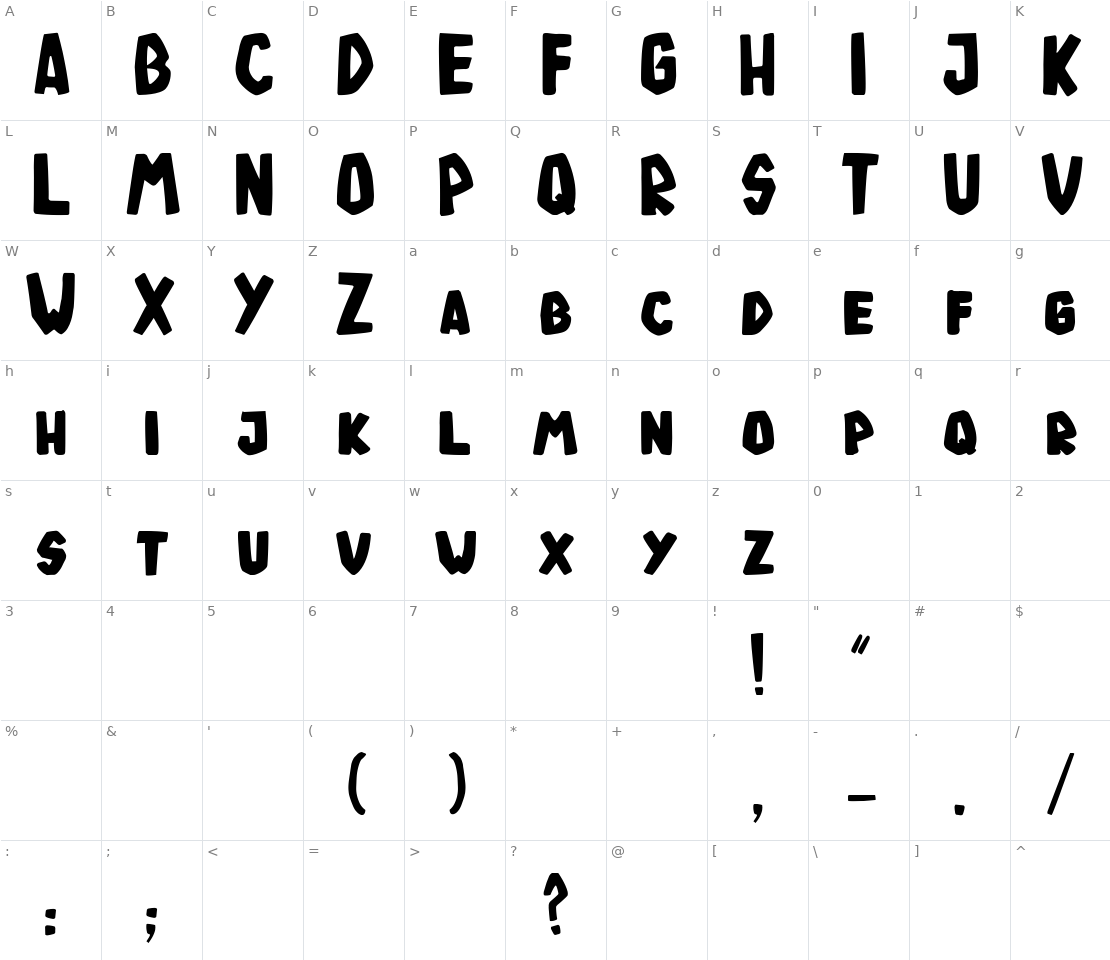
Tode Ja Oigus
Tode Ja Oigus is a heavy, playful comic face from Andres Aarik with thick, slightly irregular letterforms that carry the exaggerated energy of cartoon lettering. Everything about it feels bold and animated, like dialogue bubbles turned up to full volume. Best kept to headlines, titles, and display use where you want something chunky and fun without any pretense of seriousness.